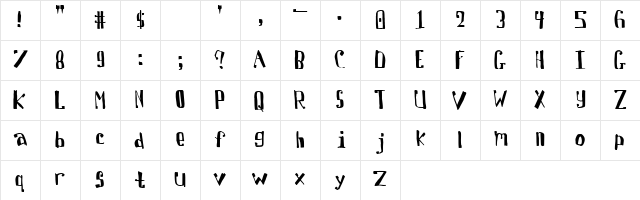
Davis Regular
Foundry: [Divide By Zero] Fonts
Designer: Tom Murphy 7
Design Context for Davis
Davis is a composed and adaptable typeface that performs quietly and consistently across a wide range of design contexts.